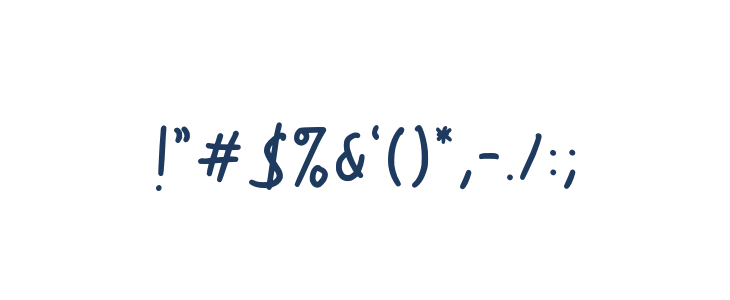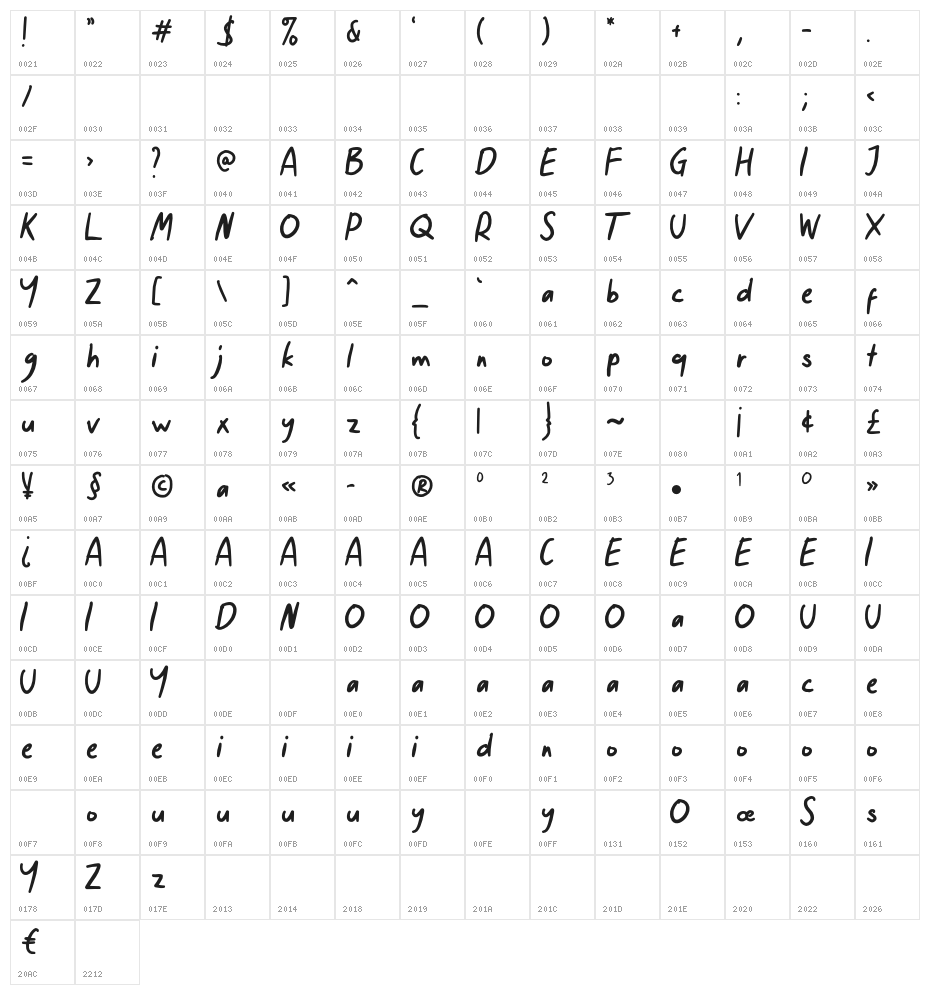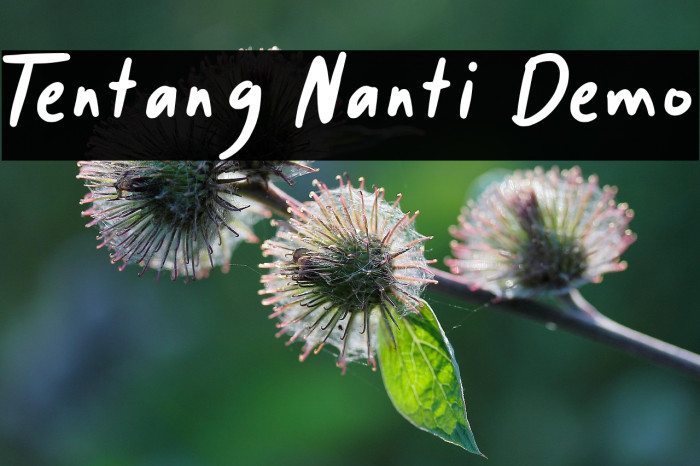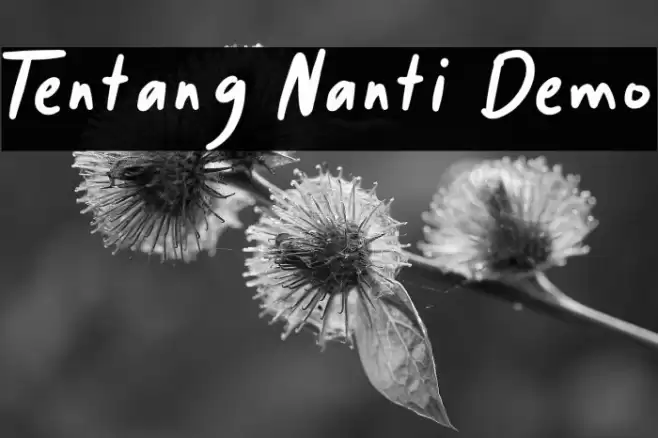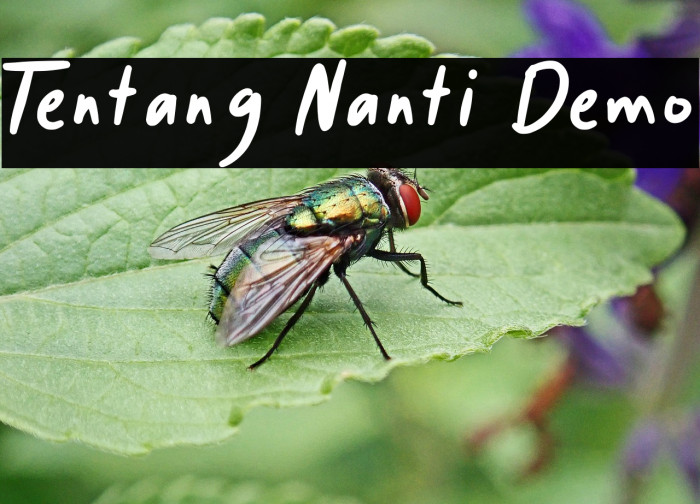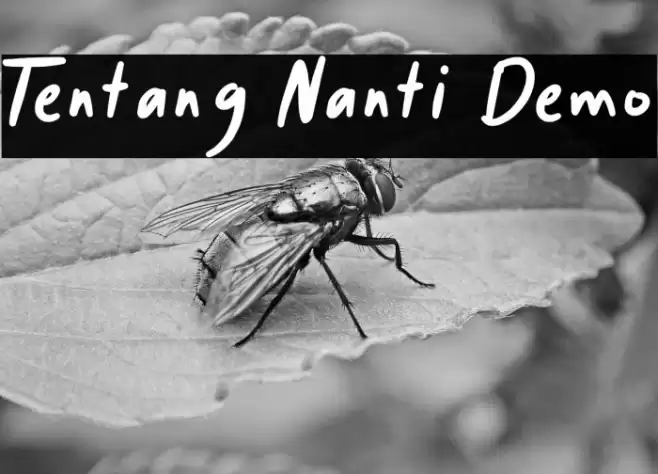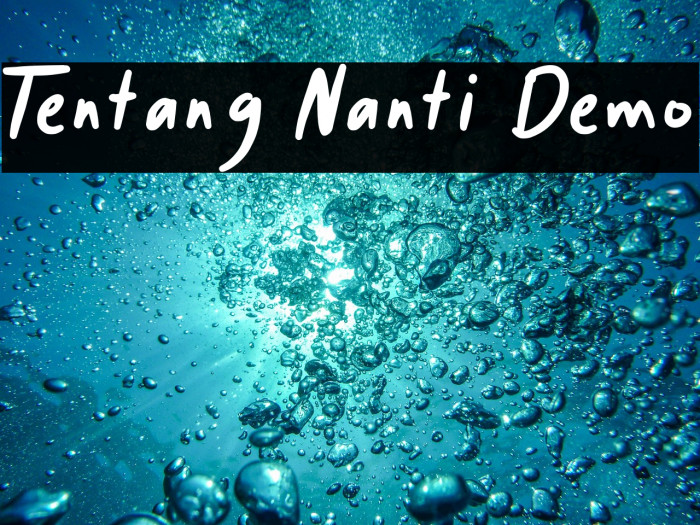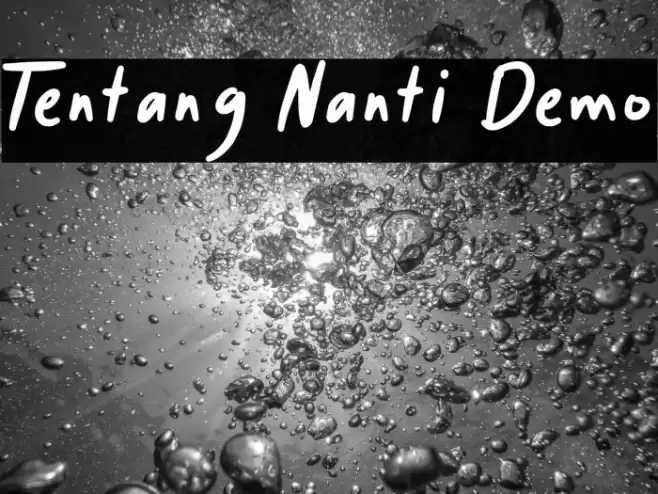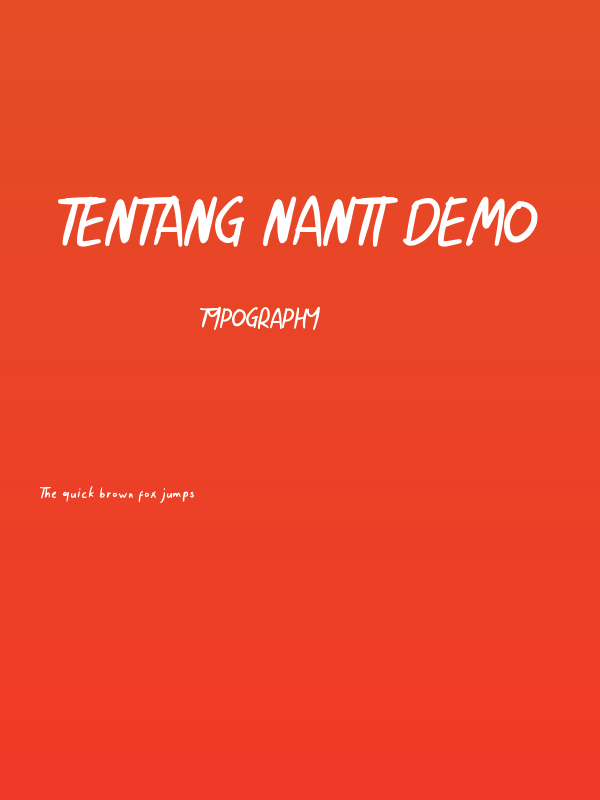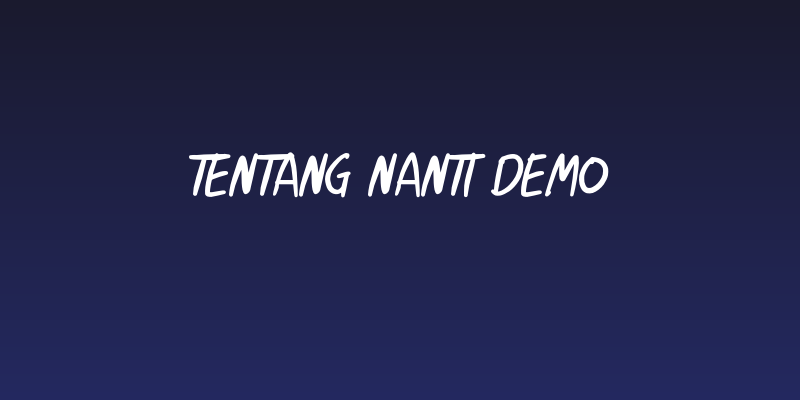
Tentang Nanti Demo Font
Tentang Nanti Demo Description
This font features a playful and informal handwritten style, characterized by its smooth, flowing strokes and slightly irregular letterforms. The uppercase letters are bold and dynamic, with a distinct slant that adds a sense of movement and energy. The lowercase letters maintain a consistent style, with rounded edges and a casual feel. The numerals and special characters are crafted with the same playful touch, making them blend seamlessly with the alphabet. This font exudes a friendly and approachable vibe, perfect for projects that require a personal and human touch.
Overall StyleCasual
Use CaseLogos, Headlines, Informal Text
Proposed ProjectsIdeal for greeting cards, personal branding, social media graphics, and informal invitations.